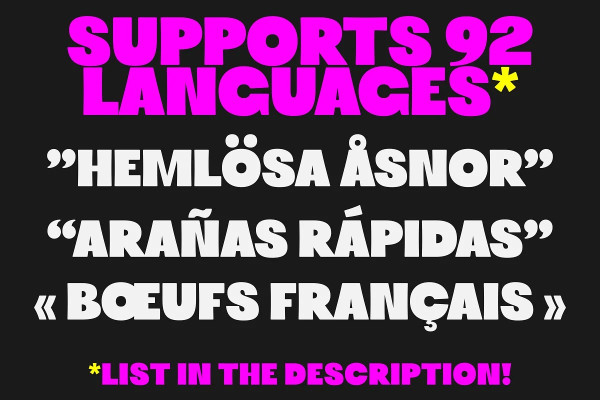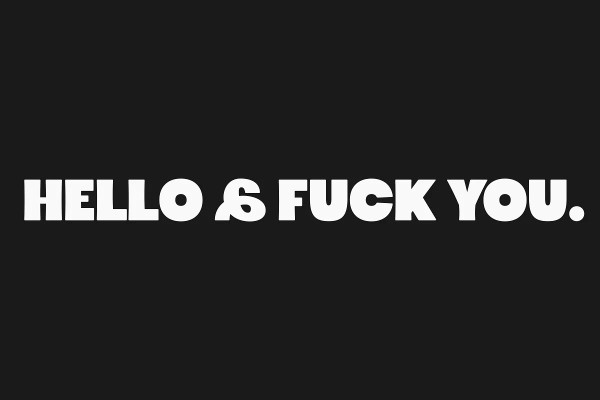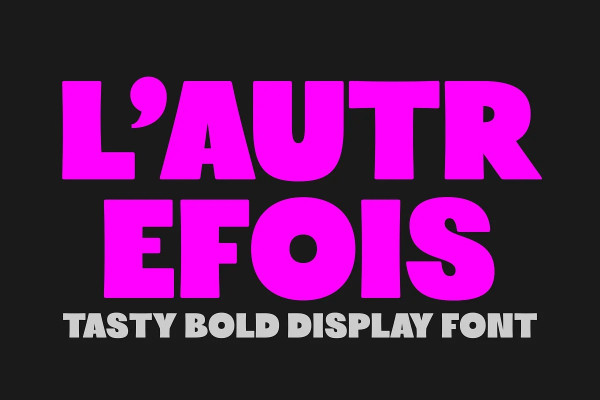
L’Autrefois Font
L’Autrefois Font is a bold display font. That’s it. It’s perfect for logos, branding, book covers, posters and such. Don’t wait, pick this font today and take your designs to the next level!